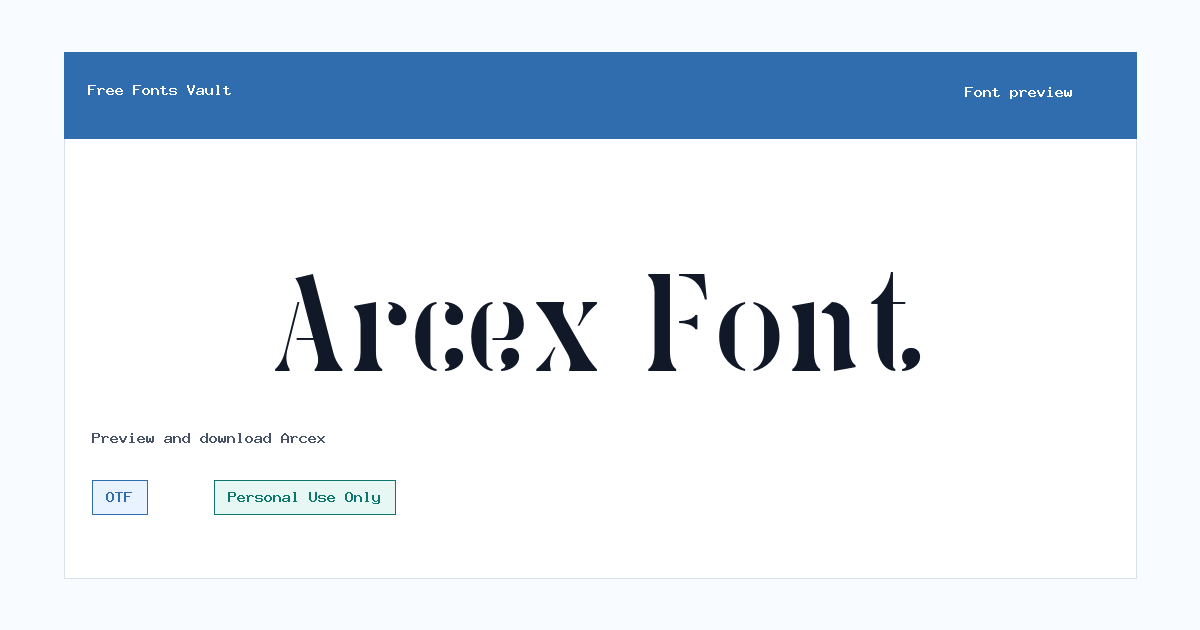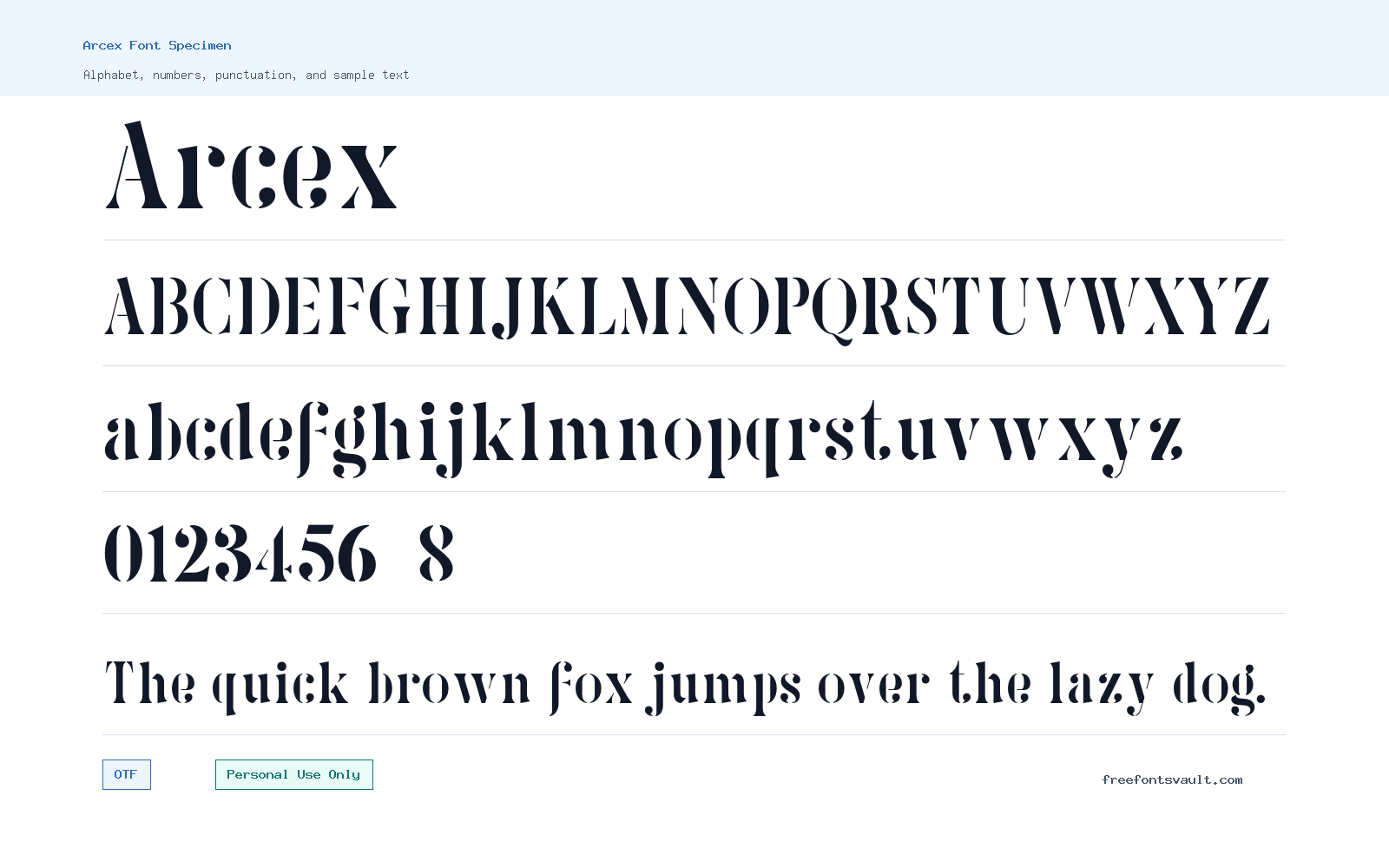
Arcex
Arcex font.
Arcex is a display font family with a regular OTF style for visitors who need a strong typeface for short text, titles, and visual experiments.
About Arcex Font
Arcex is best treated as a display font, which means it should be tested first in larger sizes rather than dropped into long paragraphs. The download contains a regular style in OTF format, with normal weight settings shown for the font file. That makes it simple to try in common design apps, font managers, and preview tools that support OpenType fonts.
Because only one regular style is listed, plan your layout around spacing, size, and contrast instead of relying on bold, italic, or multiple weights. Try Arcex in the preview box with the exact words you want to use. Short names, title lines, social graphics, labels, and poster-style text are better tests than full body copy. If the design feels too tight or too decorative at smaller sizes, pair it with a plain sans serif for readable supporting text.
- Display-font use, suited to short text where the typeface can be shown at a larger size.
- Single-style setup, making it easy to preview without comparing many weights.
- Headlines, title graphics, and short promotional text.
- Logo drafts, name ideas, and brand concept mockups for personal projects.
- Posters, thumbnails, quote cards, and social media artwork where the text stays brief.
Can I use Arcex for body text?
It is better for display use and short text. Test it at the size you need, and use a simpler companion font for paragraphs or small text.
Arcex is easiest to use in confident, compact settings such as gaming headers, tech posters, esports names, product badges, and channel art. Keep body copy in a simpler companion font and use Arcex for the words that need speed, edge, or a futuristic accent.